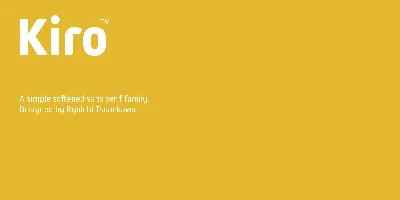
Kiro Font
The Kiro Font is a sleek, contemporary sans-serif typeface perfect for tech startups, digital branding, app interfaces, website headlines, and modern advertising campaigns. Its clean and geometric design delivers clarity and professionalism.
What makes the Kiro Font so exciting is its minimalistic yet strong appearance, balancing simplicity with a distinctive character. This font ensures your designs look fresh, modern, and highly readable across all platforms.
The Kiro Font family includes several weights such as Light, Regular, and Bold, allowing designers to build clear visual hierarchies and dynamic compositions.